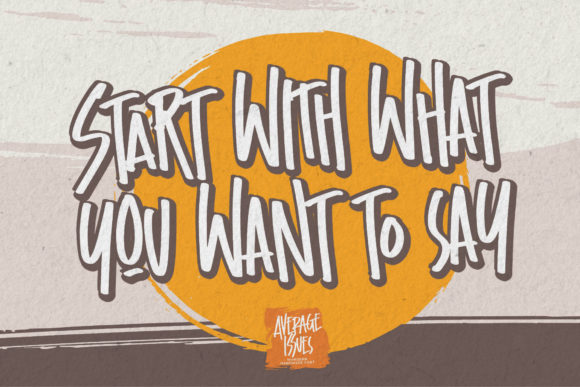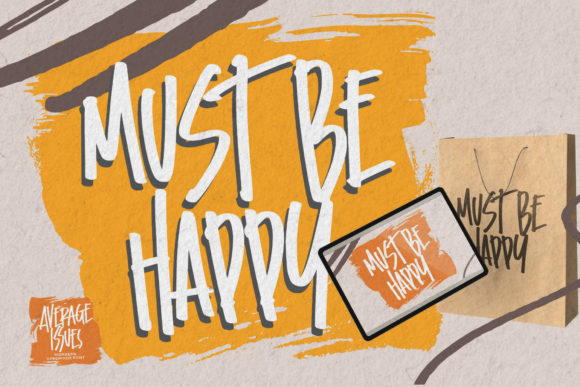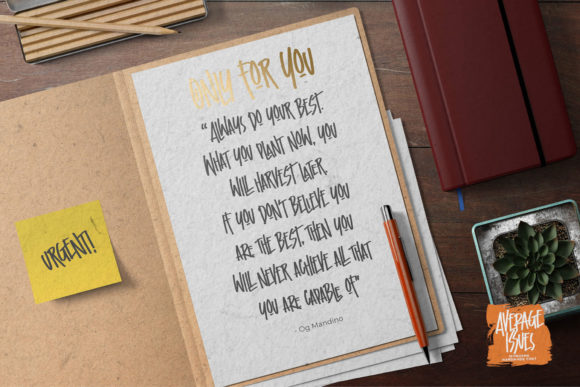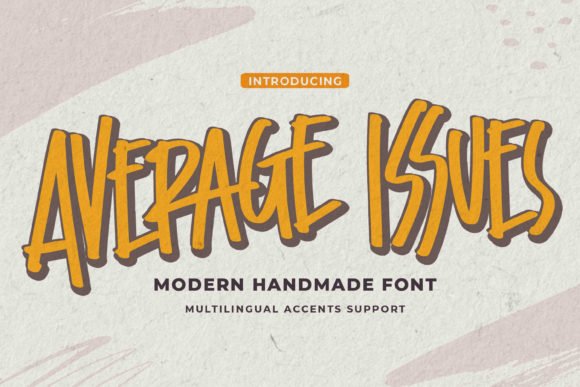
Introduction to Average Issues Font
Average Issues is a cool display font that has a street art vibe.
This font is suitable for designs such as t-shirts, sportswear, logos, advertisements, clothing, and more Average Issues is PUA encoded which means you can access all of the glyphs and swashes with ease.
Average Issues Font offers exceptional quality and versatility, making it a valuable addition to your design toolkit. Whether you’re creating for personal projects or commercial use, Average Issues Font delivers professional results.